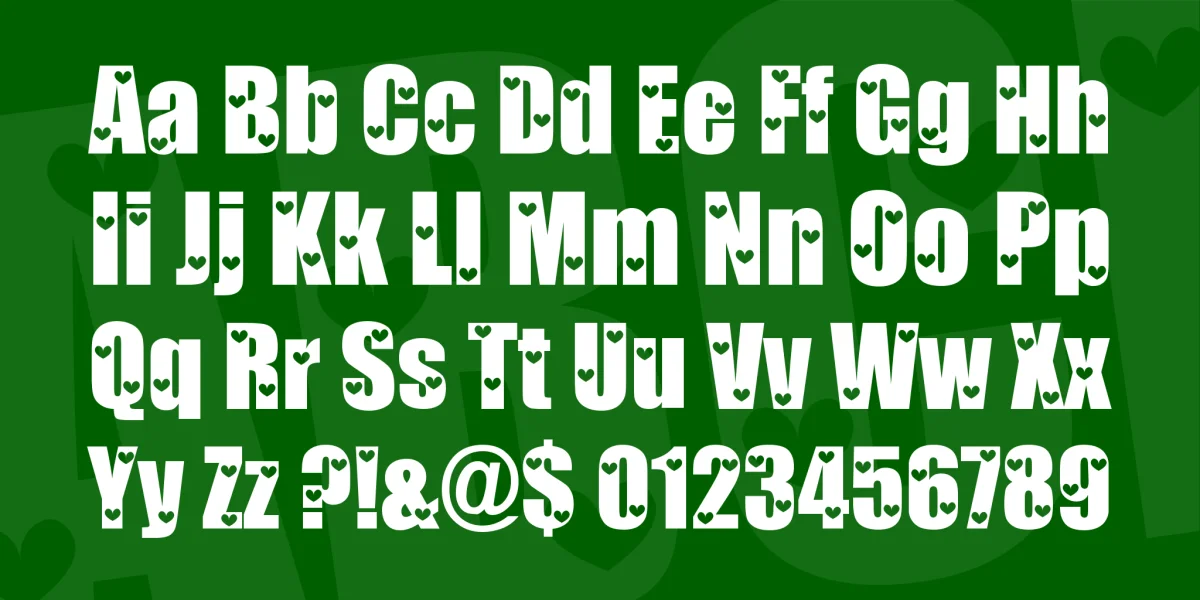
The name came to me the night I made Chonker but that font wasn't very loverly, so I saved it for later. And this font is cute enough with the hearts! Type the heart by using the asterisk (*) key.